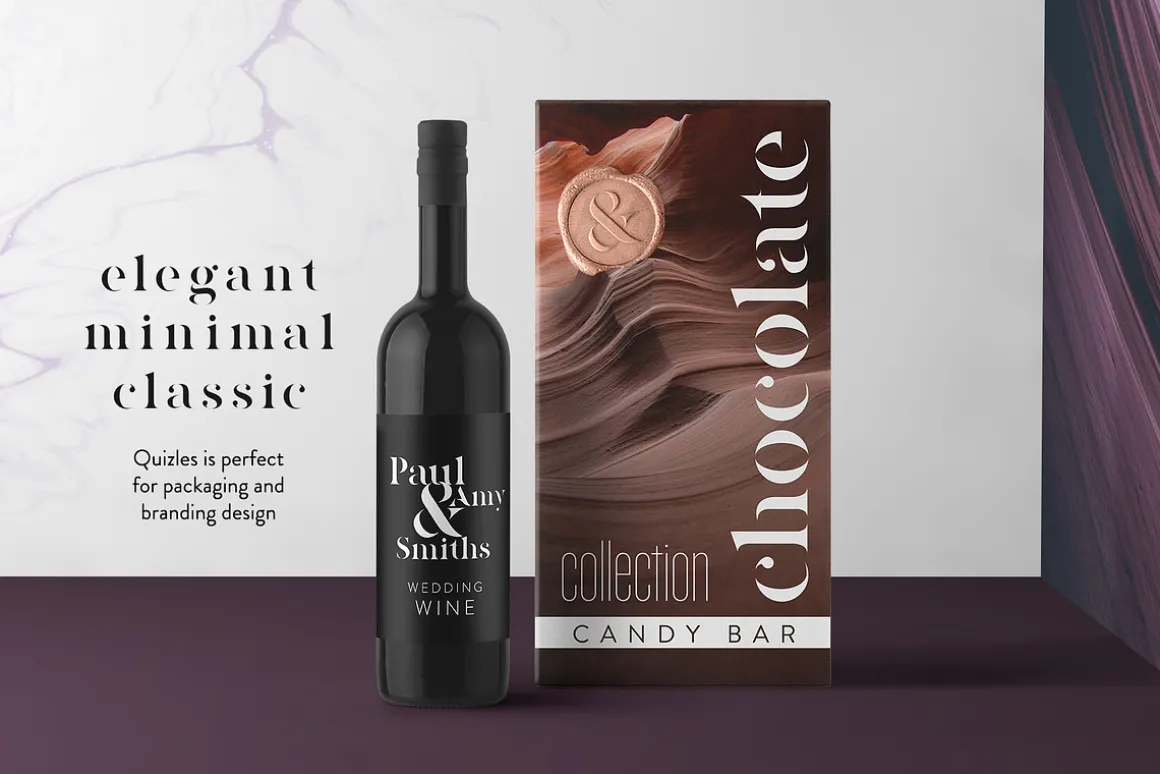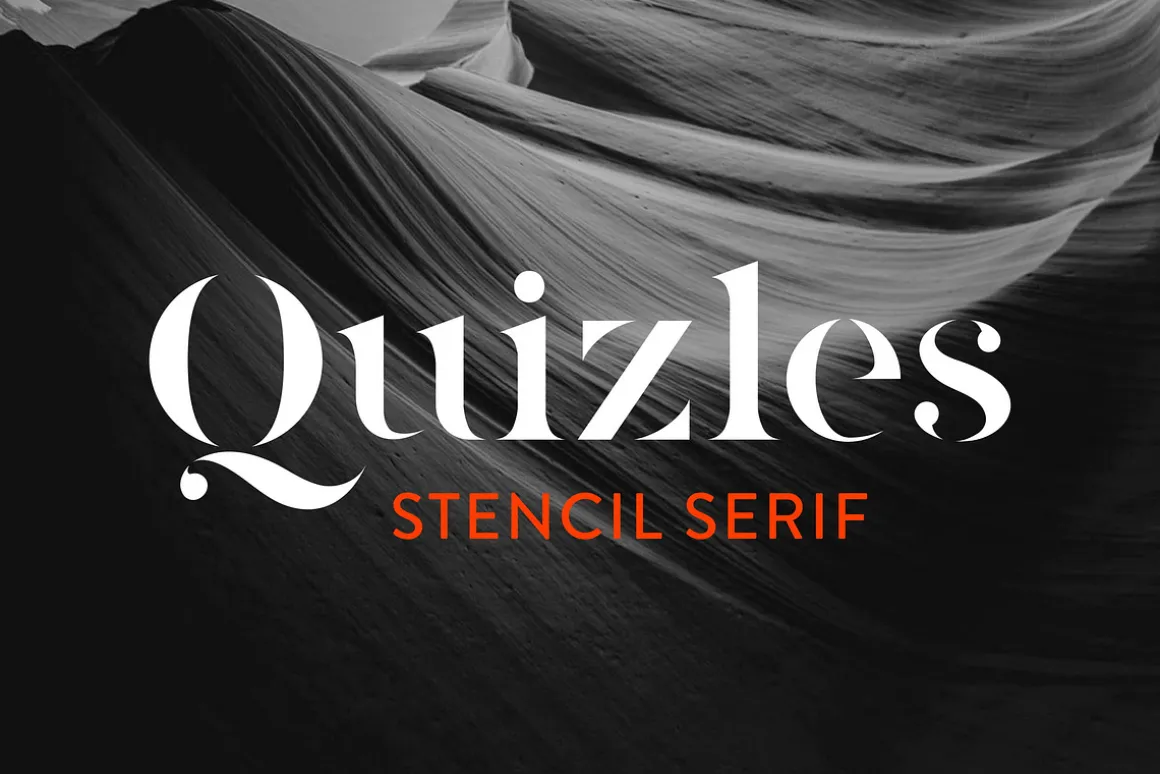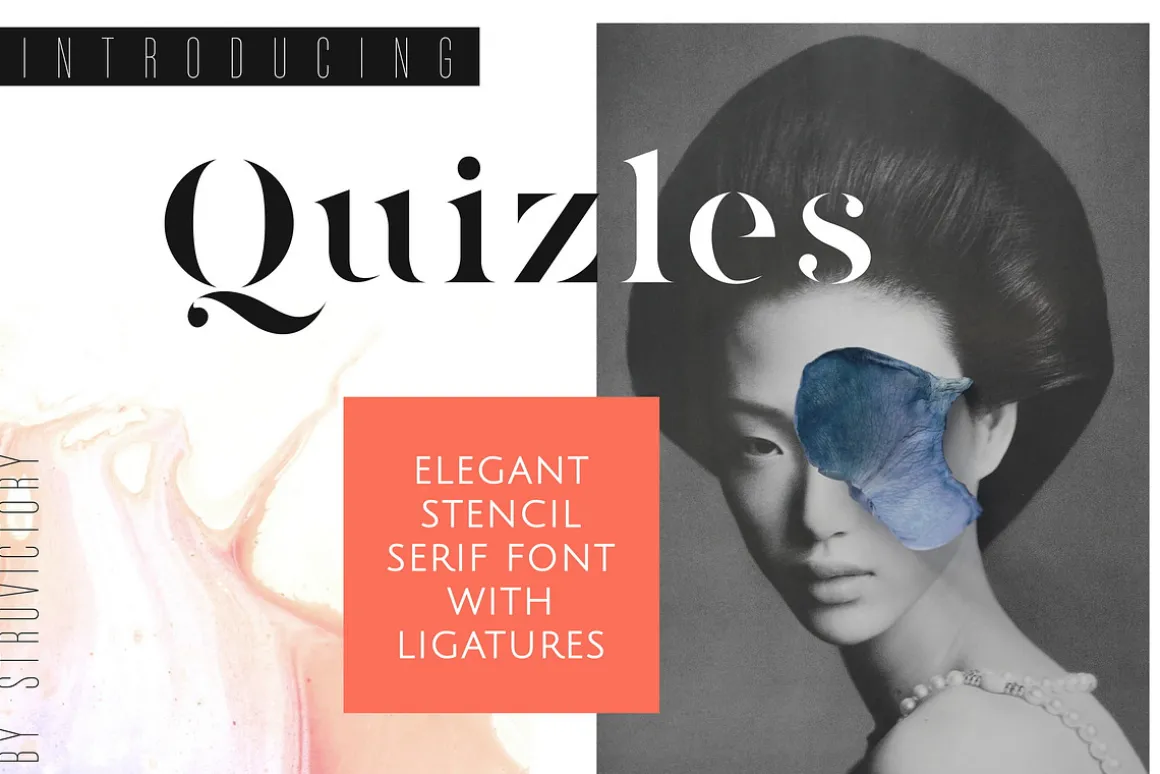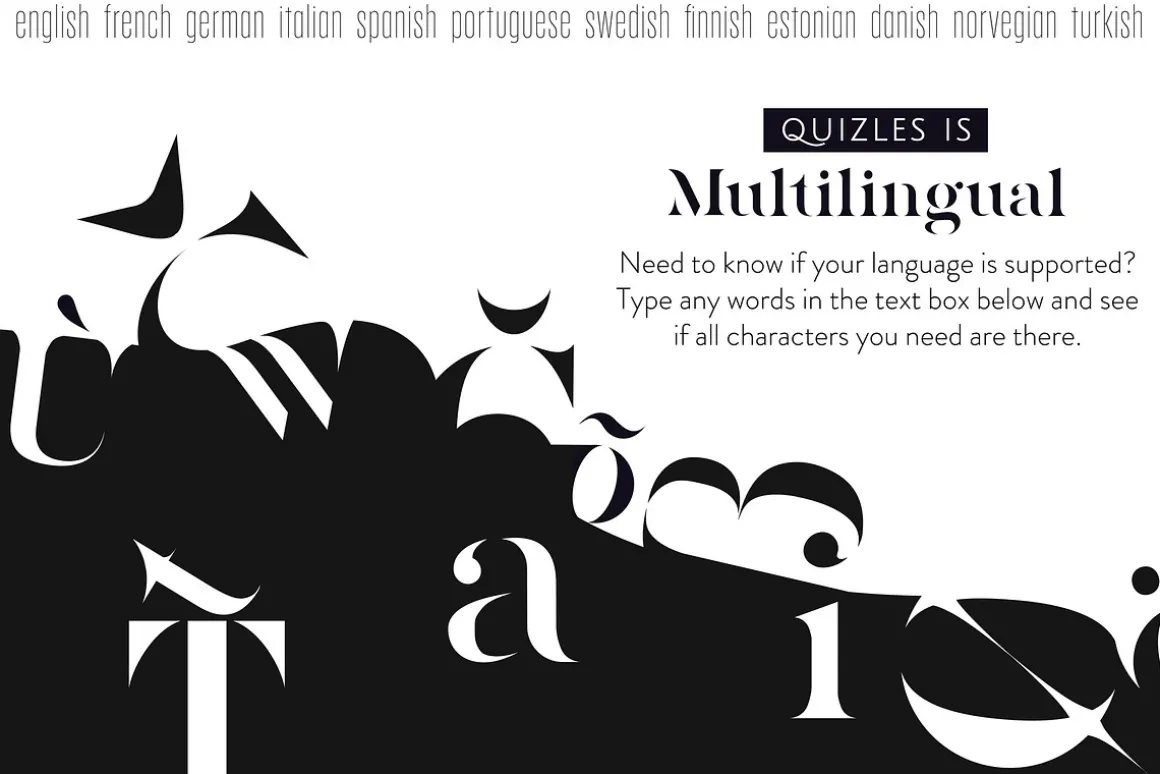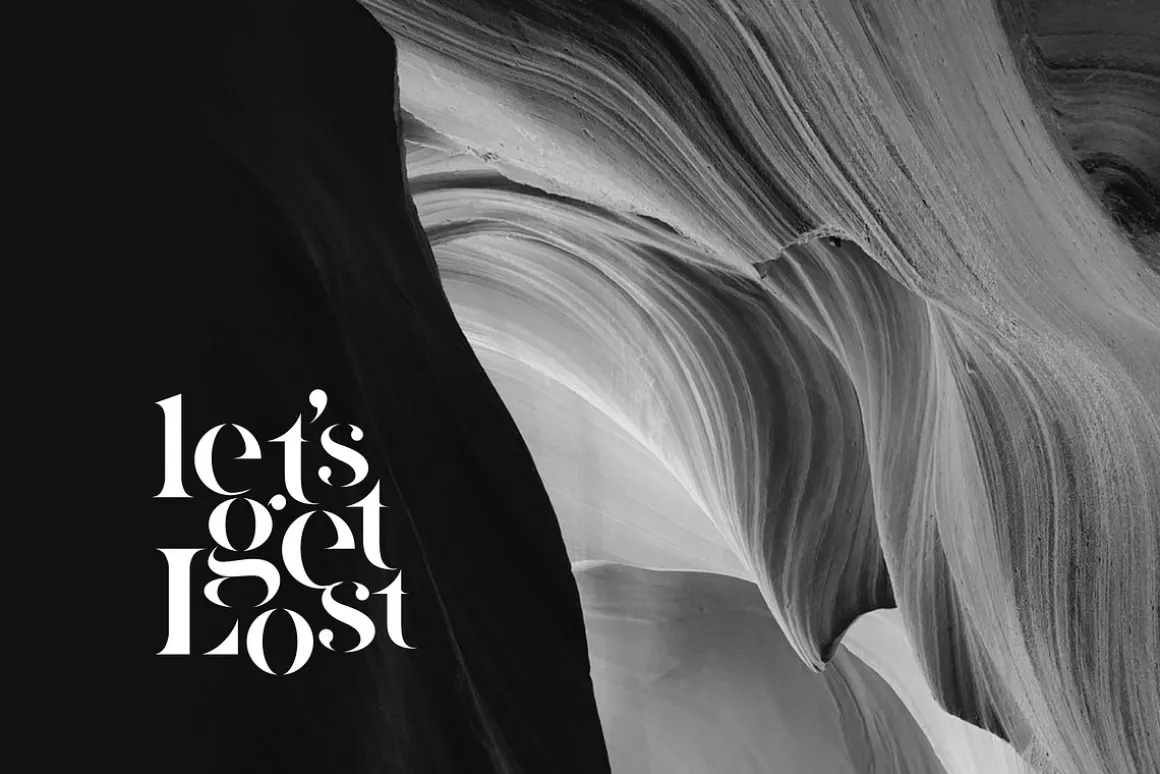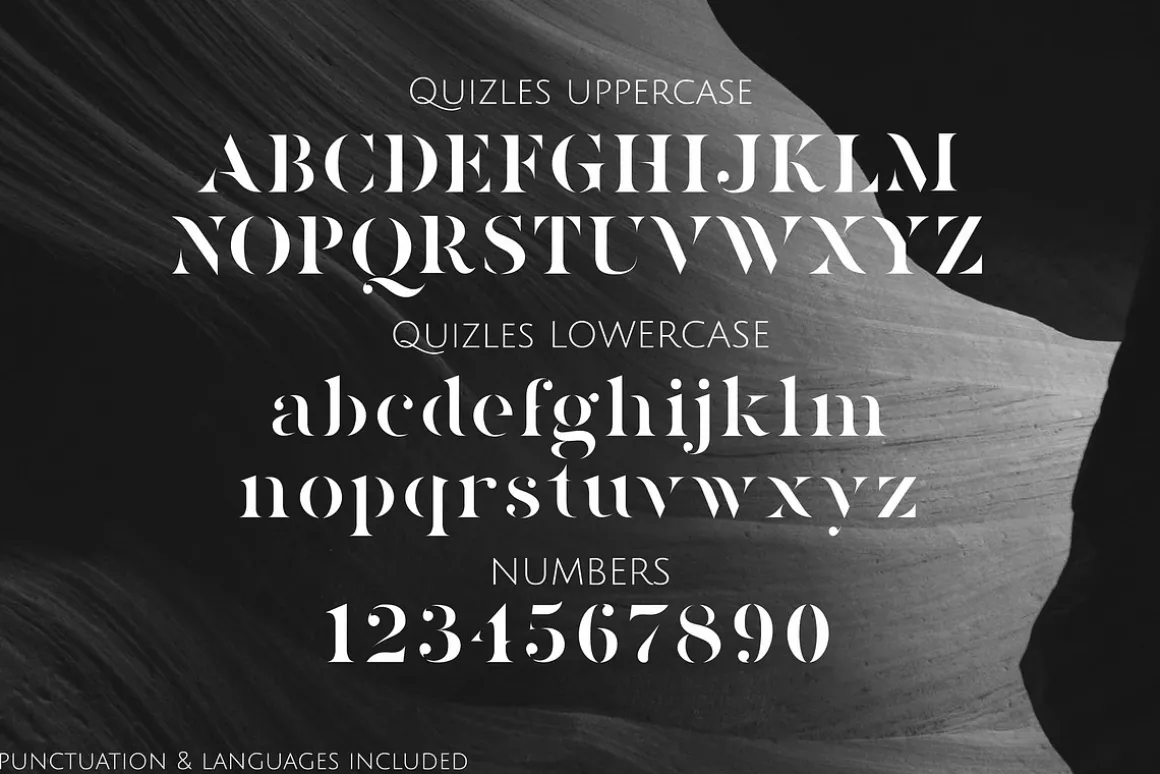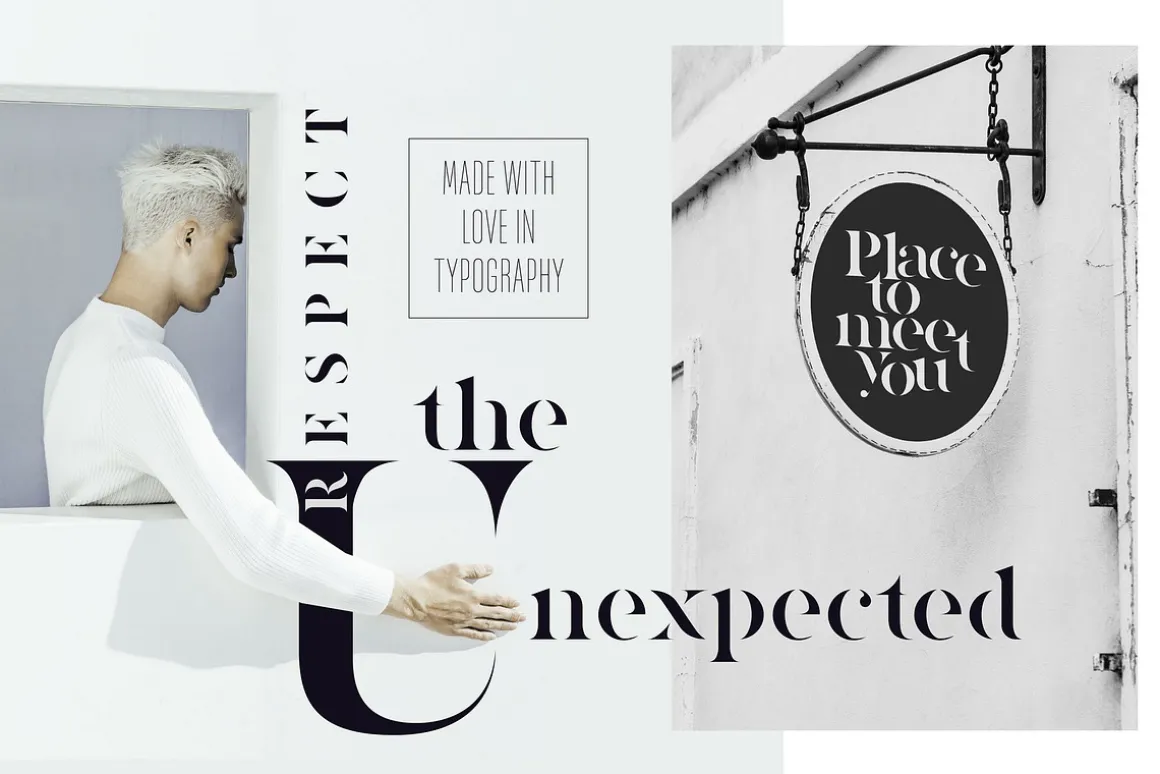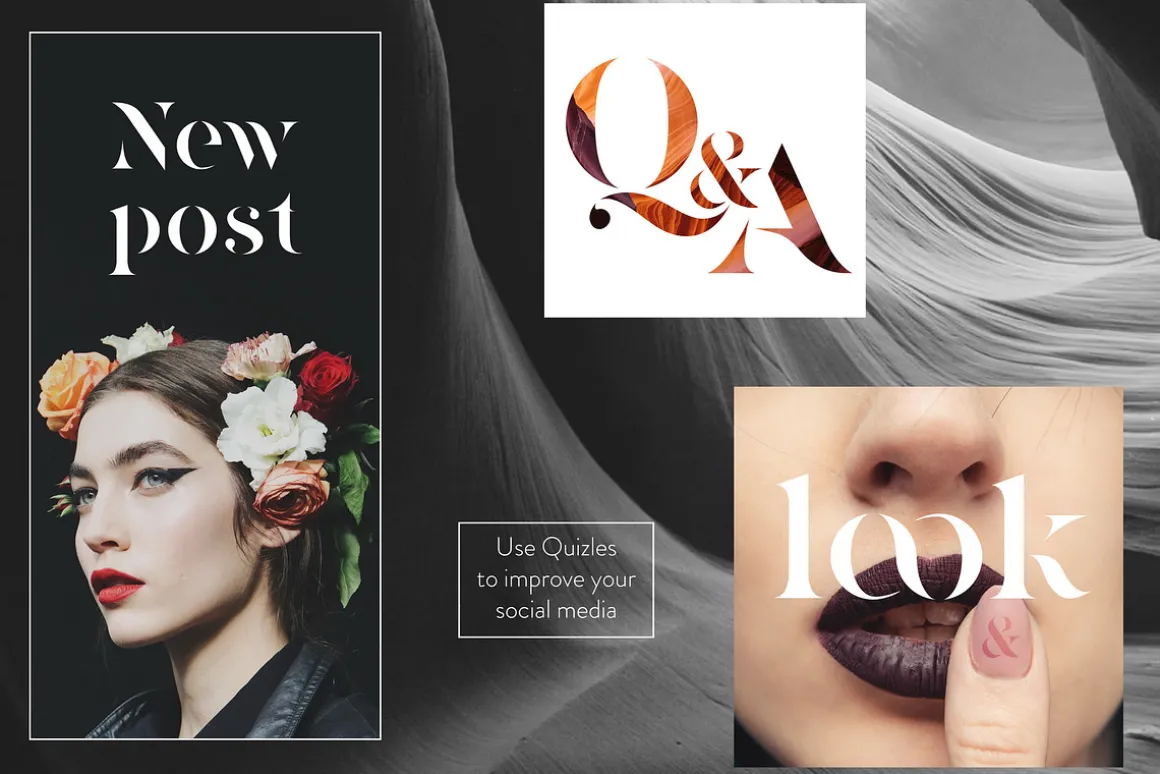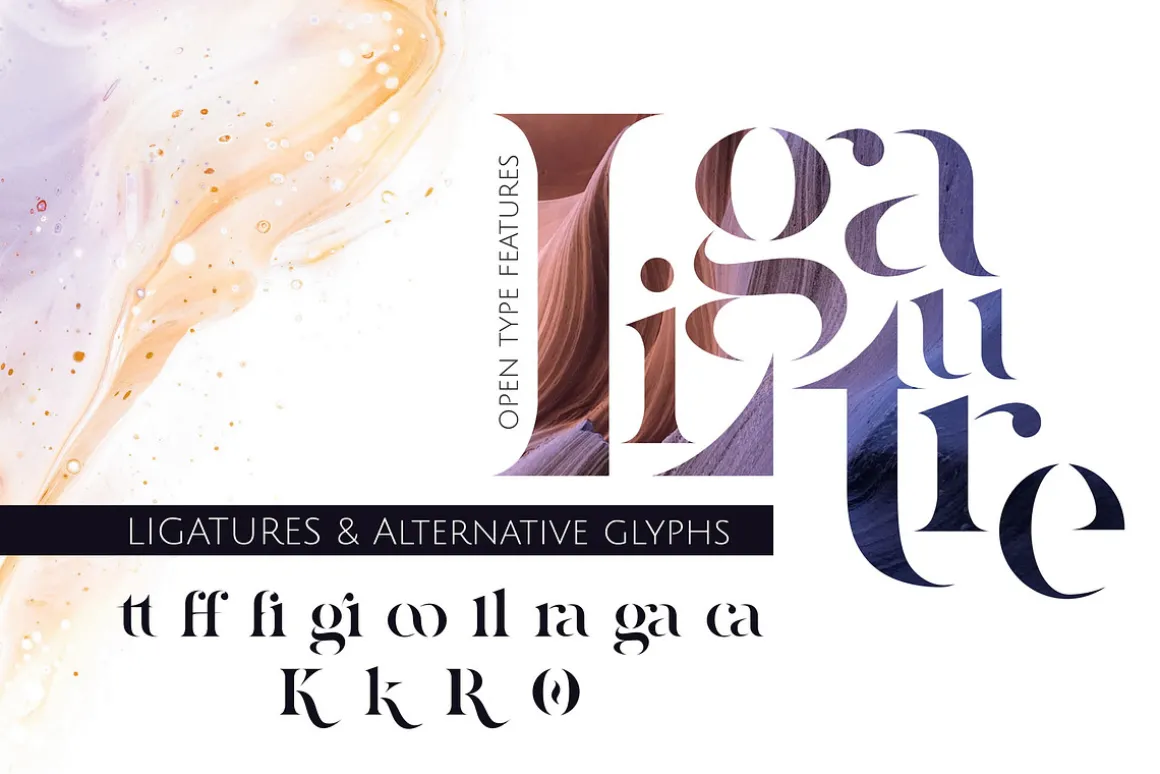
Quizles is an elegant stencil serif with contrast. The font has classic proportions with bold serifs and fading thin lines. Quizles is easy to use in various design programs or without any program.
The font is suitable for modern and vintage typographic compositions, design of books and fashion magazines, branding, packaging and social media design. Also use individual letters to create logos and monograms.
The font has extensive language support, it includes English, French, German, Italian, Spanish, Portuguese, Danish, Norwegian, Swedish, Finnish, Estonian, Turkish. Need to know if your language is supported? Type any words in the text box below and see if all characters you need are there.
Quizles serif includes stylistic alternates for symbols: K, k, O, R. There are also ligatures: tt, ff, fi, gi, oo, ll, ra, ga, ca.